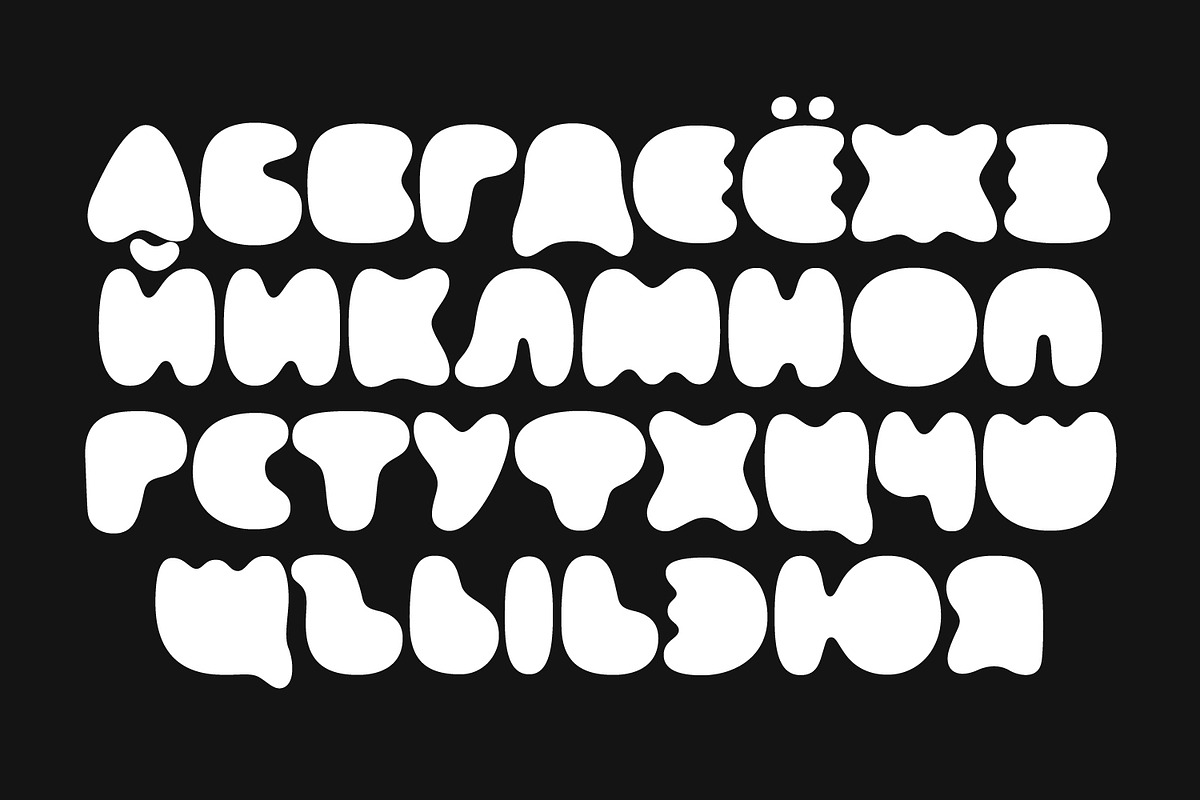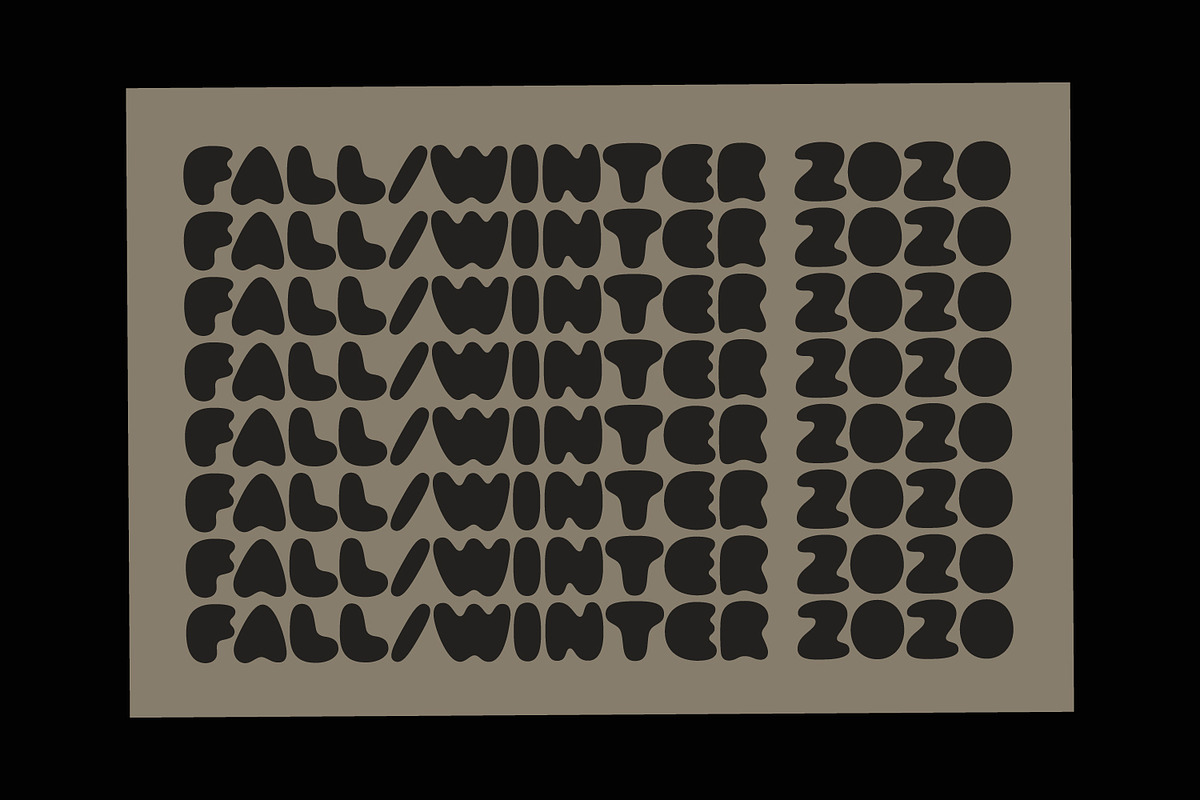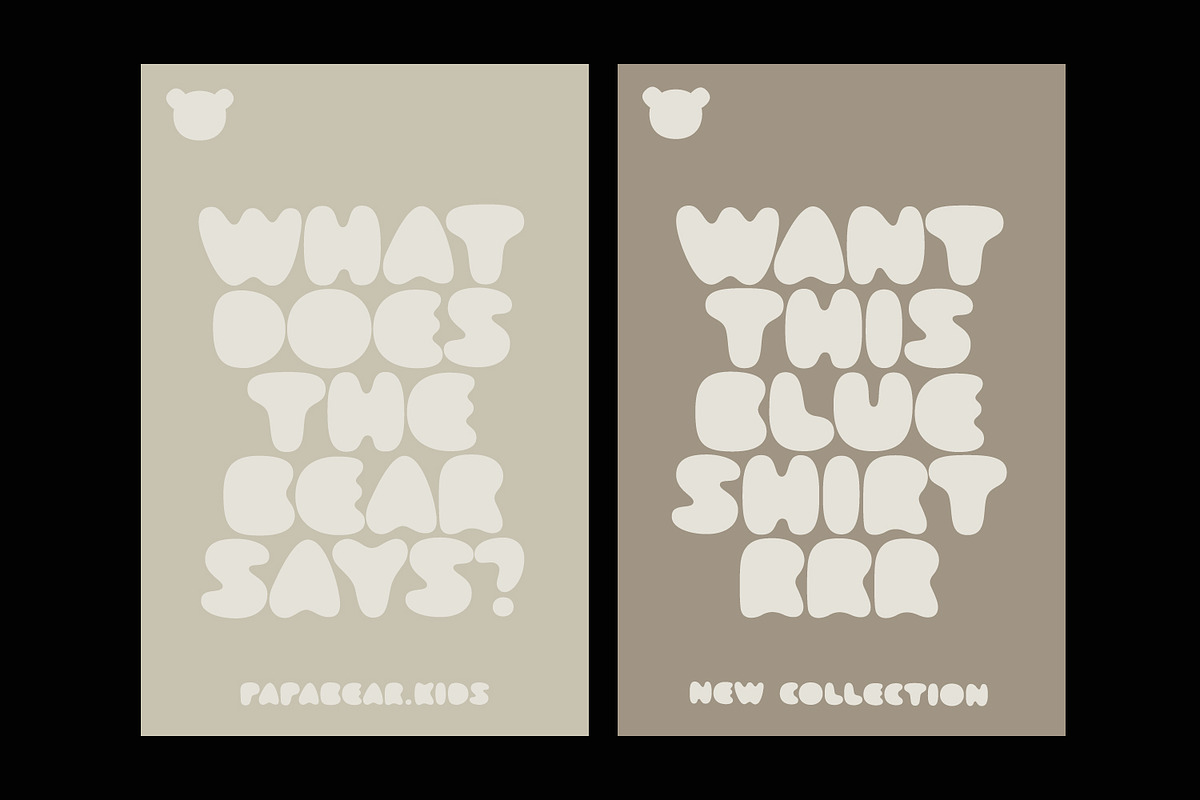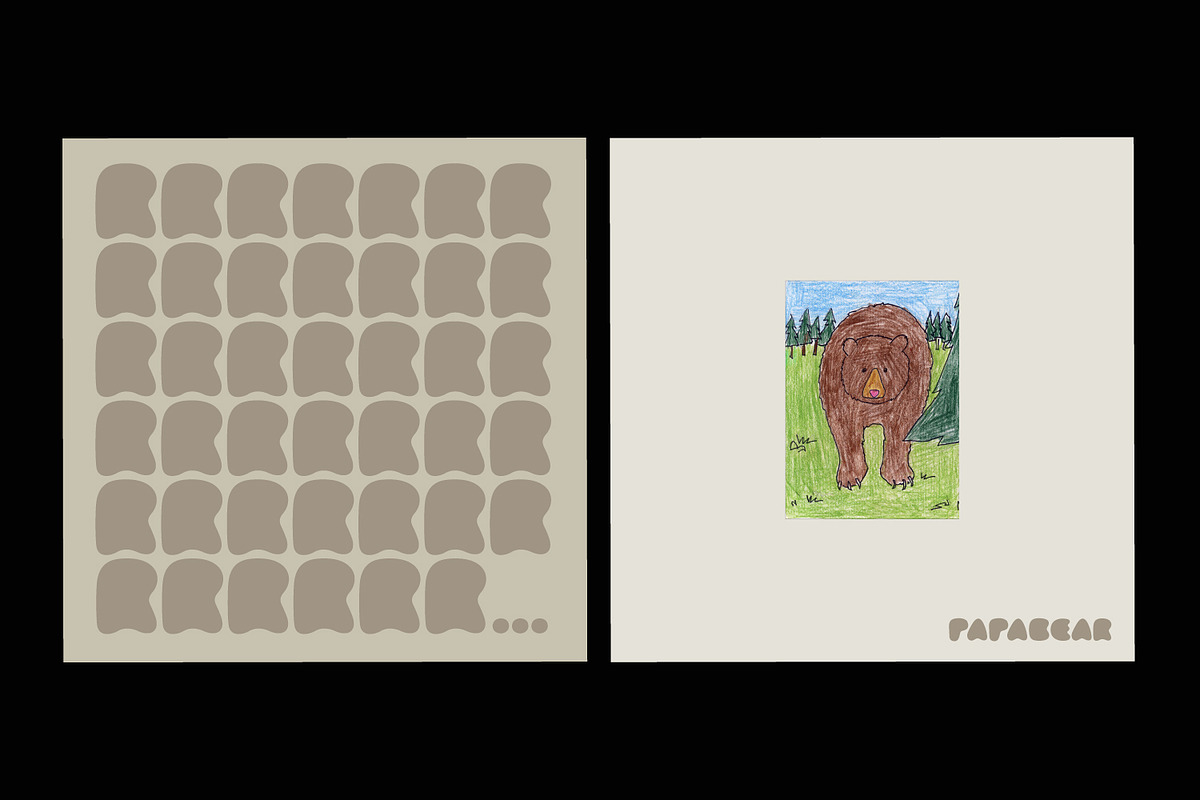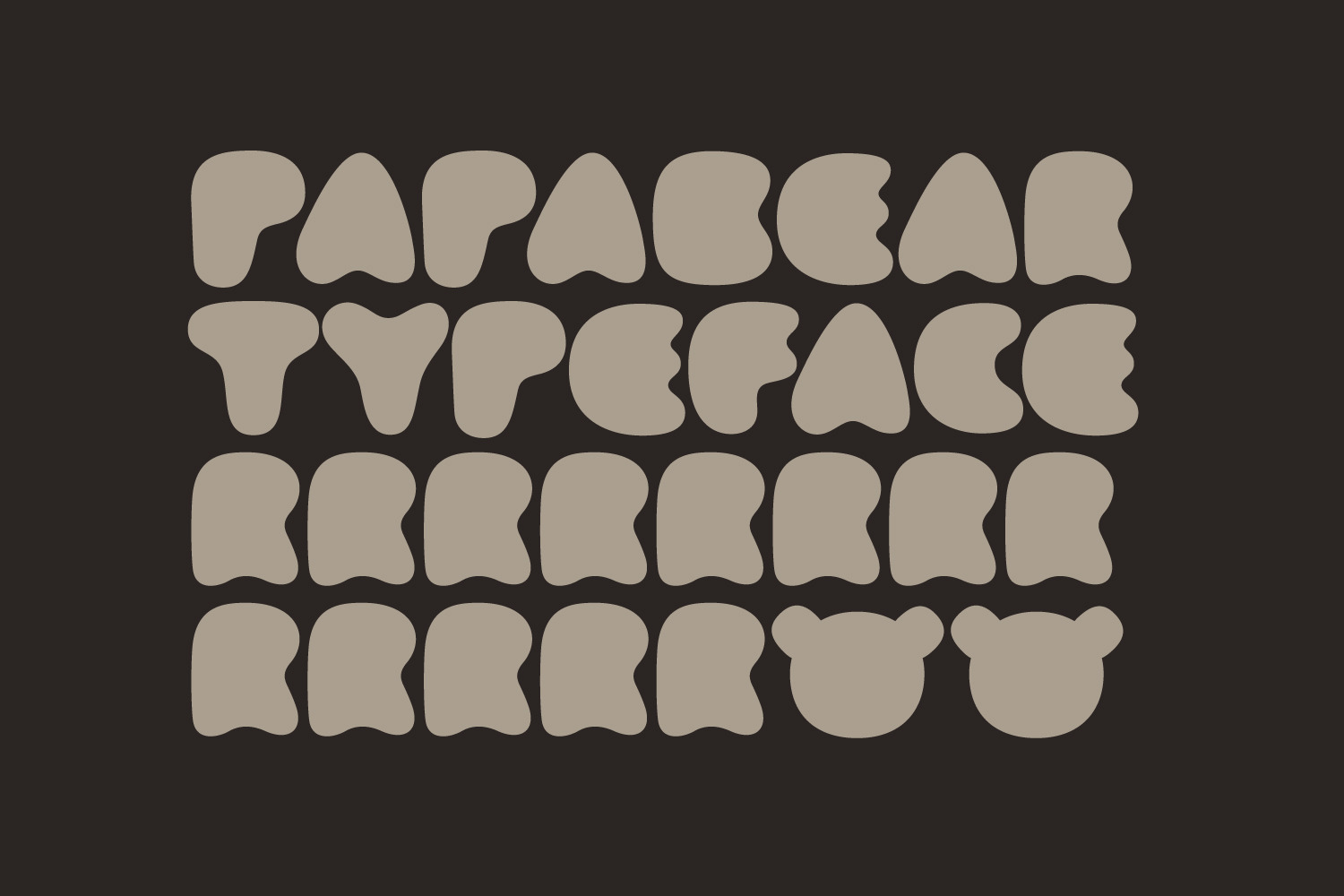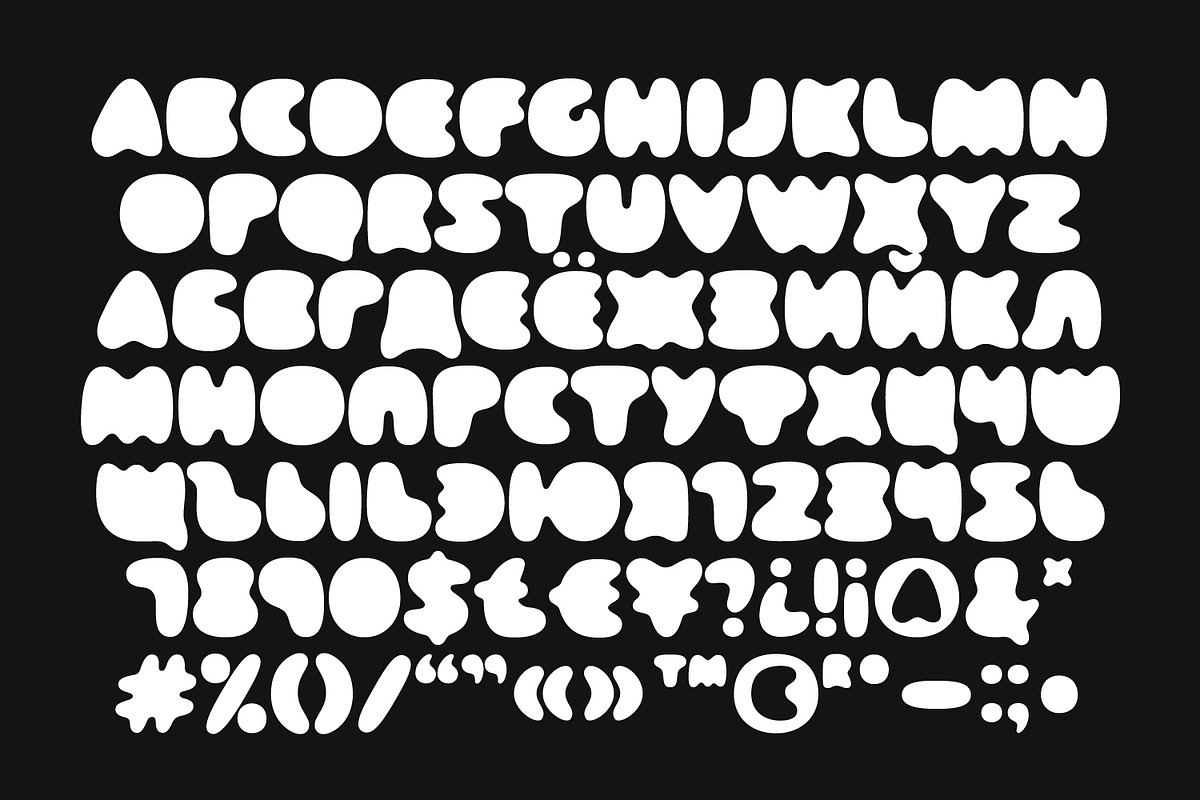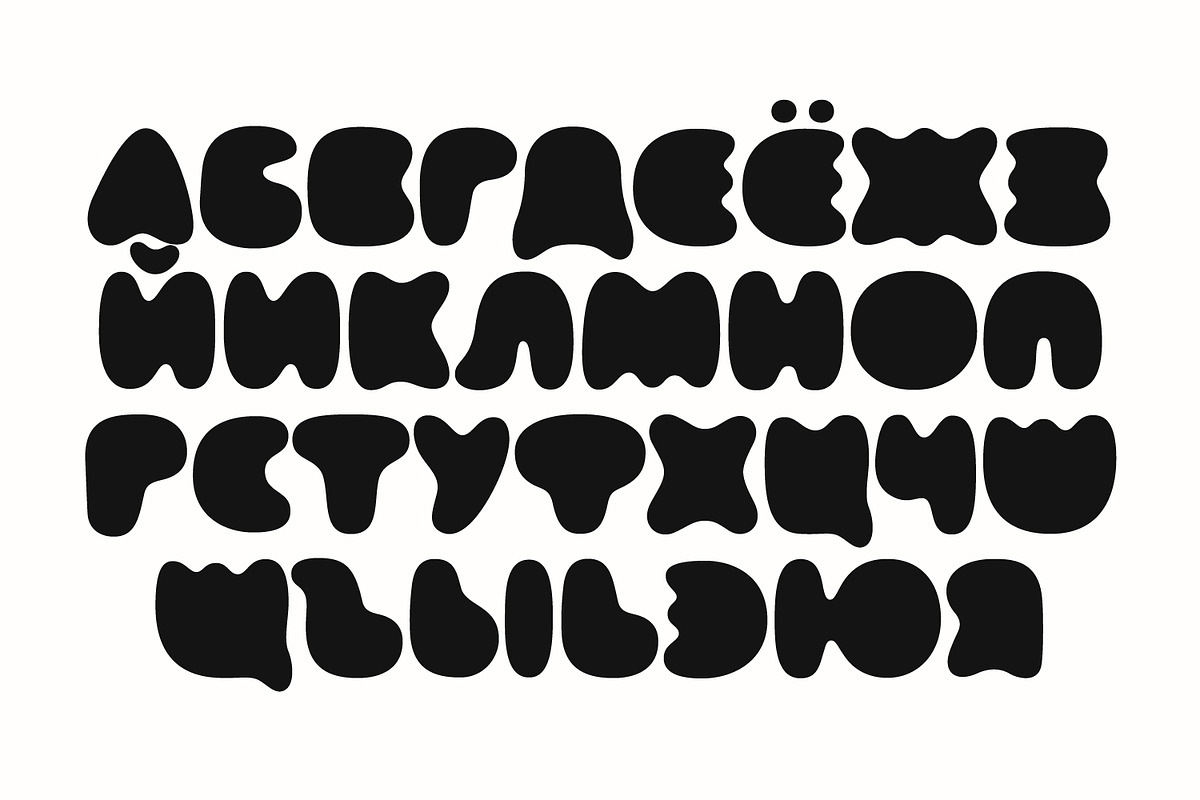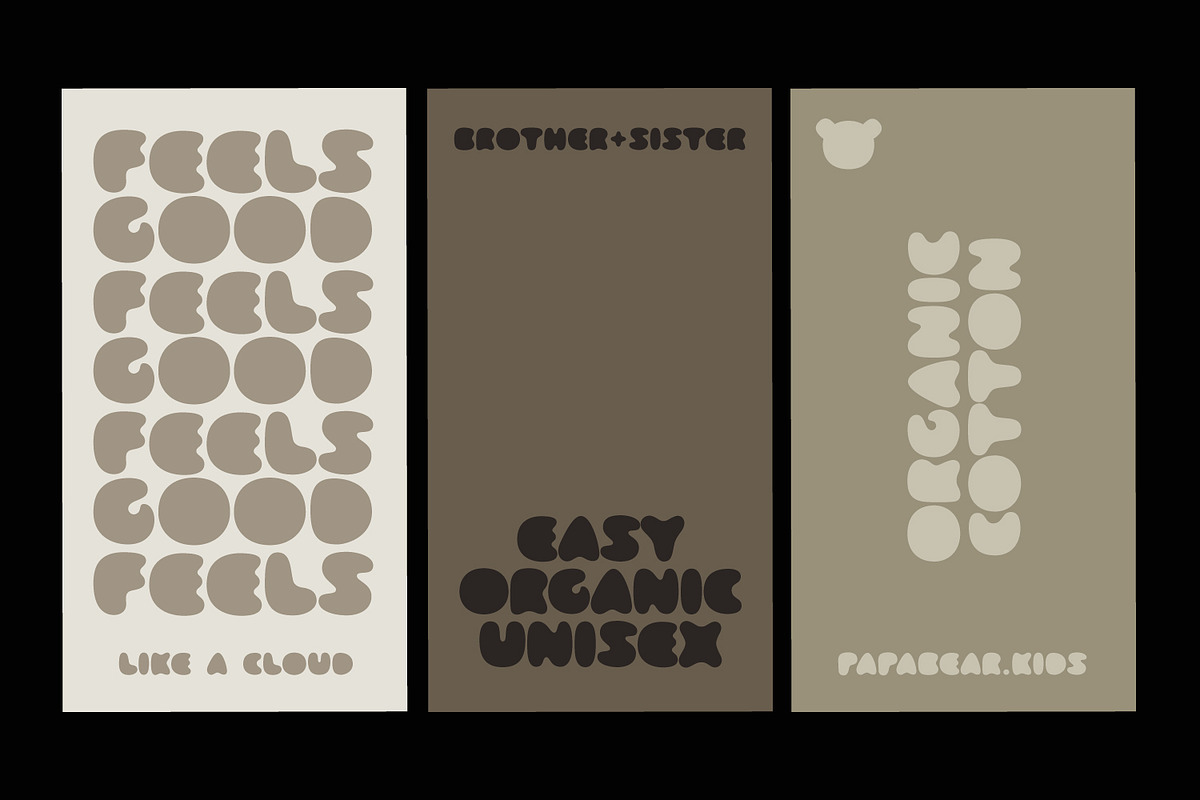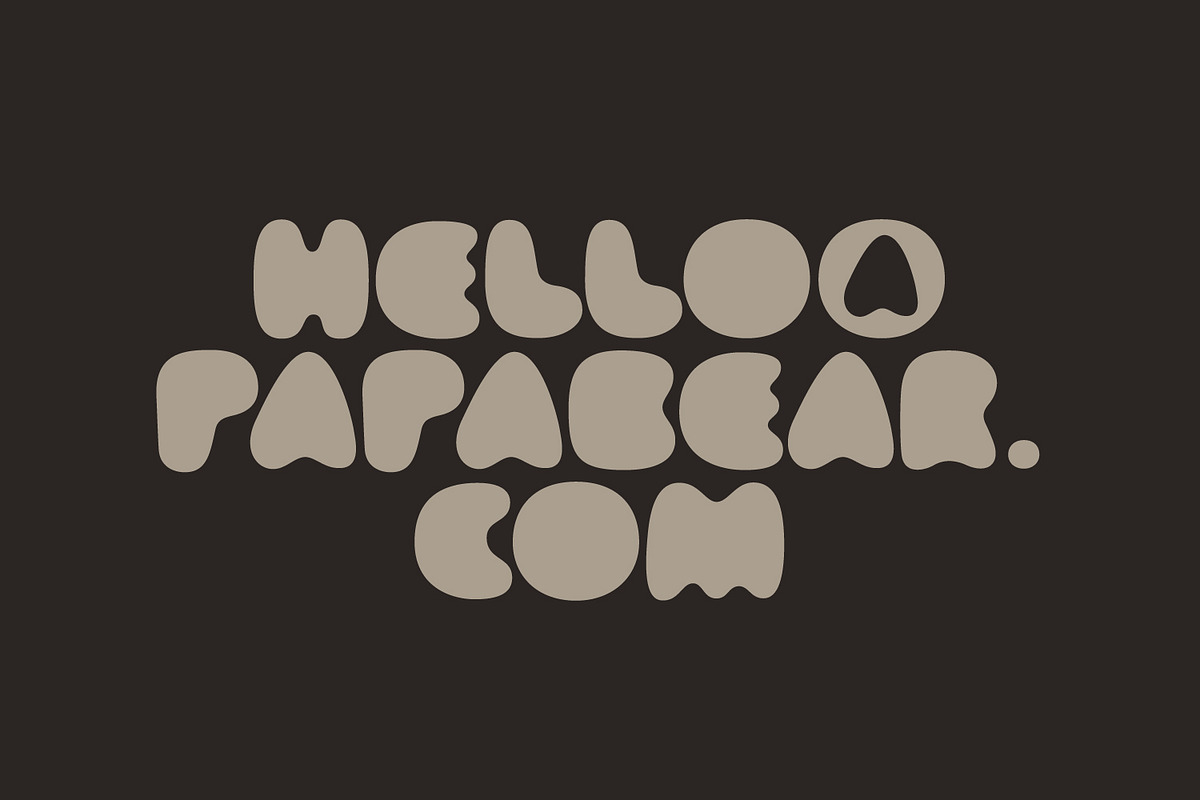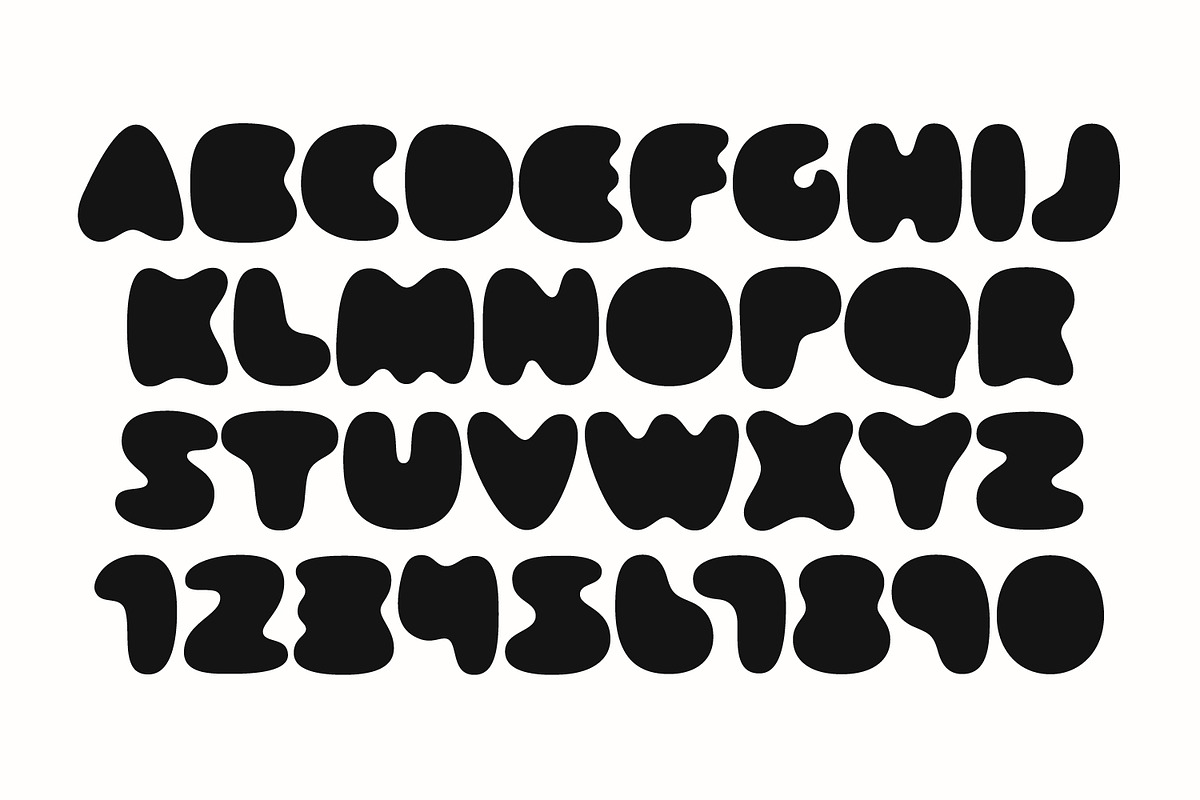
Papa Bear
PAPA BEAR is a super soft, friendly and really nice unicase font, designed for maximum visual and emotional impact. It's great for branding, social media, headlines, large-format print, editorial and swag design. It's great on its own, looks amazing both in black and white and in color. Cool in combination with minimalistic imagery.